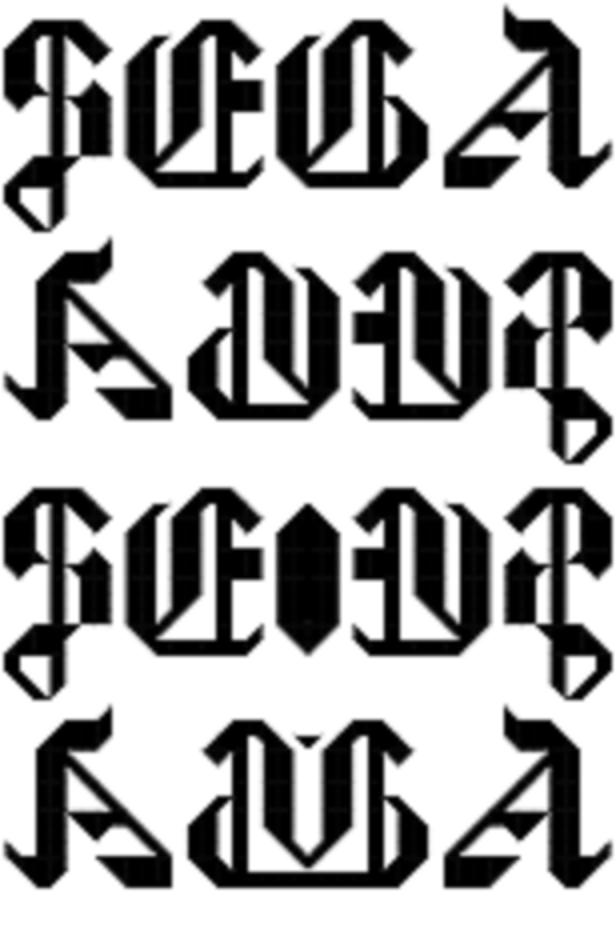
Love the 'A'. The 's' is bugging me a little bit. A tiny bit of tweaking could help. Readable down to size 12. Looks best at size 36 or so. Nice at size 24. The black to white line ration width is a little too high to be easy to read below size 24. One of my favorite black letter fonts.
This is my first attempt to make a blackletter font. Almost all of the letters design are from the internet. The S is just a random S that i was able to make in just a few angles
Nice work!
Love the 'A'. The 's' is bugging me a little bit. A tiny bit of tweaking could help. Readable down to size 12. Looks best at size 36 or so. Nice at size 24. The black to white line ration width is a little too high to be easy to read below size 24. One of my favorite black letter fonts.
This is my first attempt to make a blackletter font. Almost all of the letters design are from the internet. The S is just a random S that i was able to make in just a few angles
I think you can create the long S (ſ) from the Eszett (ß)
I put new S at # what do you think
Like it. Also, you meant "Long S"...
I found a stray brick on one of the glyphs...
that down left part is actually a accent XD
The tiny triangle is removed
love this!
I agree . . . this is great.